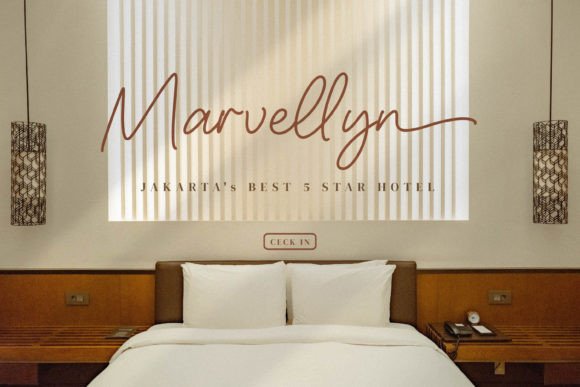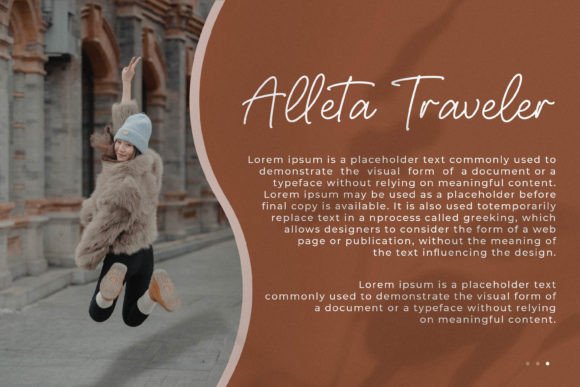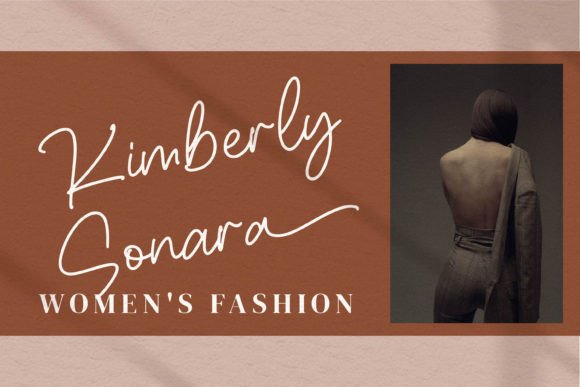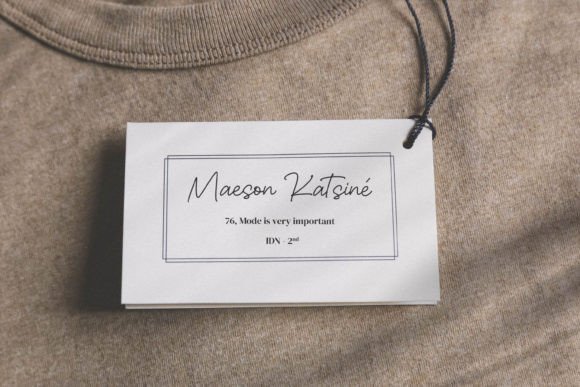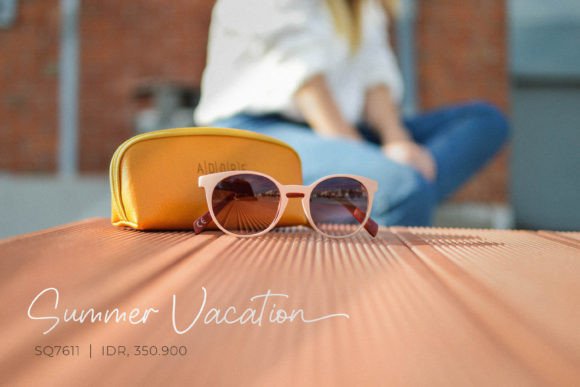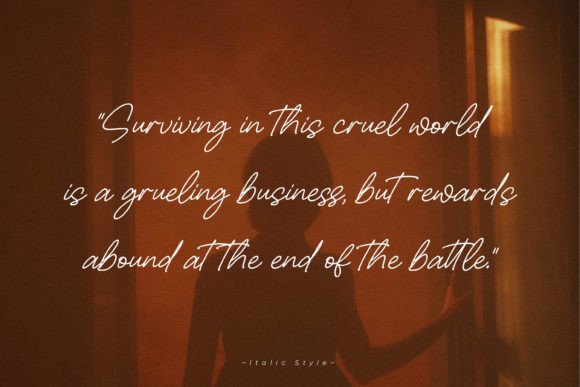
The Magical World of Arqantallic Font
An Honest Review of Arqantallic
- ✨ Romantic feel: Arqantallic adds a touch of elegance and romance to any project, making it perfect for wedding invitations, greeting cards, and more.
- ✅ Versatility: This script font can be used for a wide range of applications, from headlines to body text, and even decorative elements.
- 💫 Unique character: Arqantallic has a distinct, handwritten feel that sets it apart from other fonts.
While Arqantallic is an amazing font, there are a few things to keep in mind:
- 🤔 Legibility at small sizes: Like many script fonts, Arqantallic can be a bit tricky to read at very small sizes. Make sure to test it at different sizes to ensure it’s legible for your project.
- ⚠️ Limited use in formal contexts: While Arqantallic is perfect for romantic or whimsical designs, it may not be the best choice for formal or professional projects.
The Story Behind Arqantallic
Arqantallic was designed by a talented type designer who wanted to create a font that captured the essence of romance and elegance. Inspired by traditional calligraphy and handwritten scripts, Arqantallic is a modern take on classic typography.
Q: What is Arqantallic font?
Arqantallic is a beautiful, handwritten script font perfect for adding a romantic touch to your designs.
Q: Is Arqantallic suitable for body text?
While Arqantallic is a beautiful font, it’s best suited for headlines and decorative text. For body text, you may want to choose a more legible font.